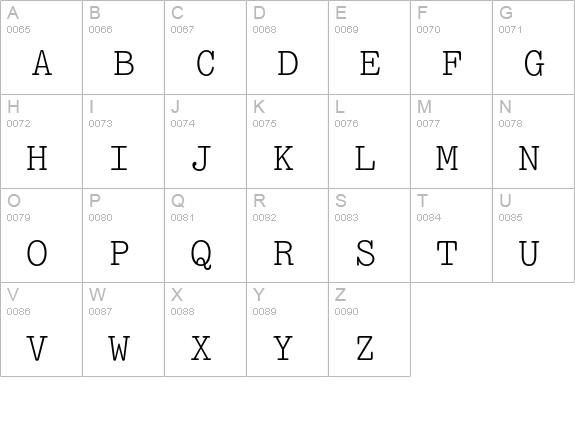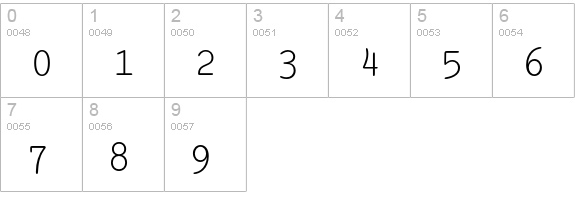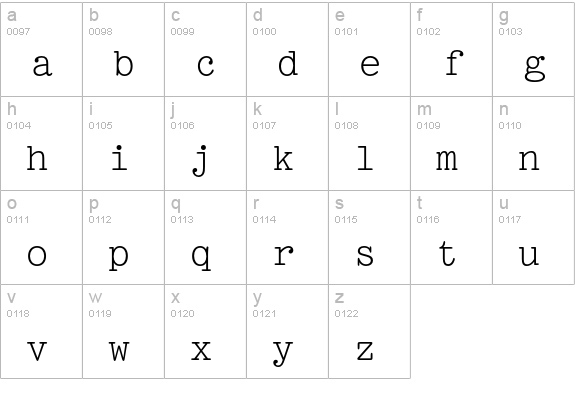
Pica 10 Pitch font is a timeless typeface that exudes elegance and professionalism. With its precise and balanced letterforms, this font is perfect for creating clean and readable text in a variety of applications, including print and digital media. Designed with a fixed width of 10 characters per inch, Pica 10 Pitch font provides a consistent and uniform appearance across all characters. Its classic and refined design makes it a popular choice for typewriters, computer terminals, and coding environments. What makes Pica 10 Pitch font even more appealing is that it is freely available to download at FontsMarket.com. Whether you're a designer, writer, or typewriter enthusiast, you can easily access this font without any cost, allowing you to enhance your projects with a touch of sophistication and professionalism. Featuring a wide range of characters including uppercase, lowercase, numbers, and punctuation marks, Pica 10 Pitch font offers versatility and compatibility with various design software and applications. Its clean and sharp edges ensure legibility even at smaller sizes, making it ideal for publications, technical documents, and other text-heavy materials. With its timeless appeal and free availability, Pica 10 Pitch font is a must-have for anyone looking to add a touch of classic elegance to their designs. Download it now at FontsMarket.com and experience the versatility and beauty of this exceptional typeface.